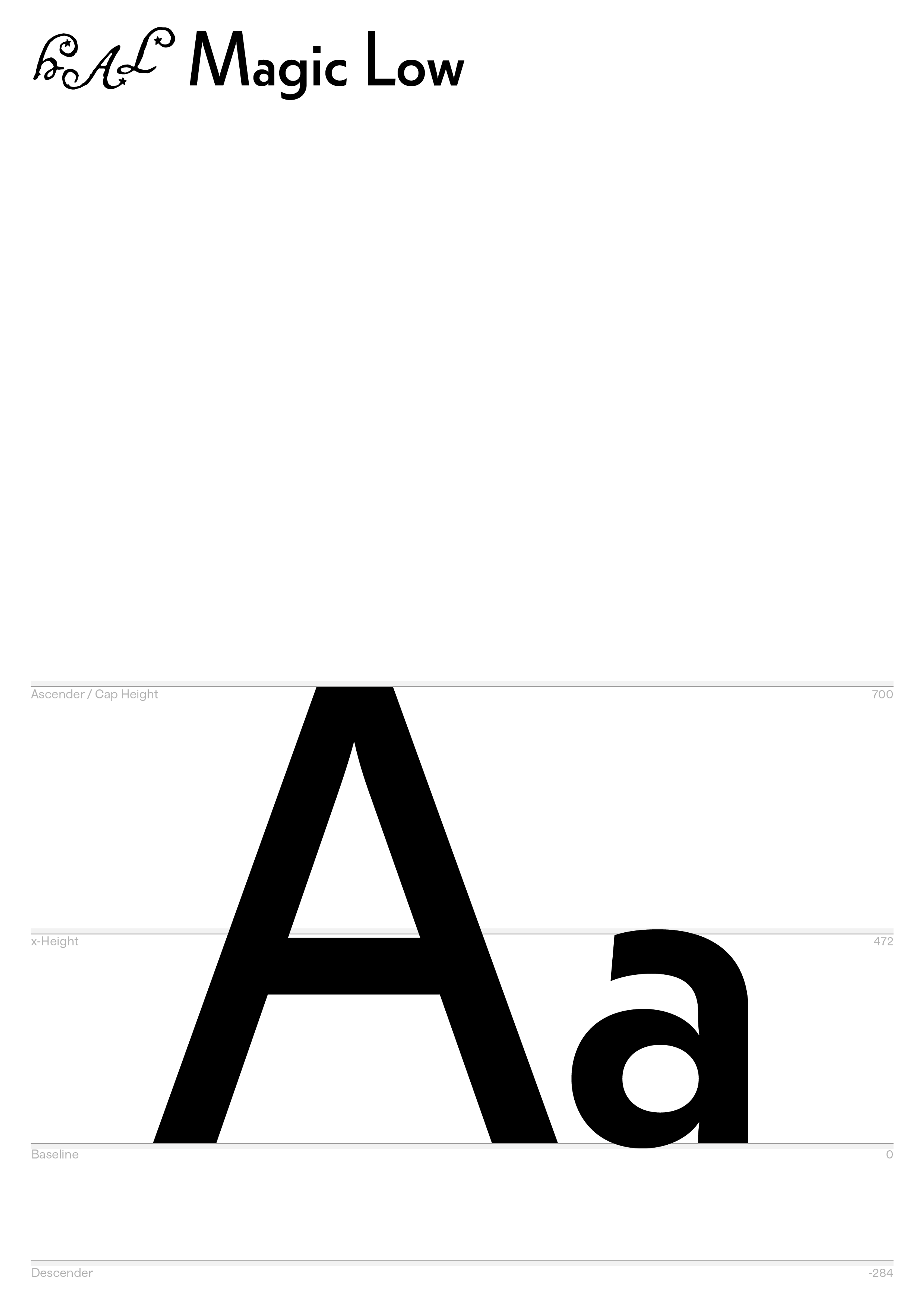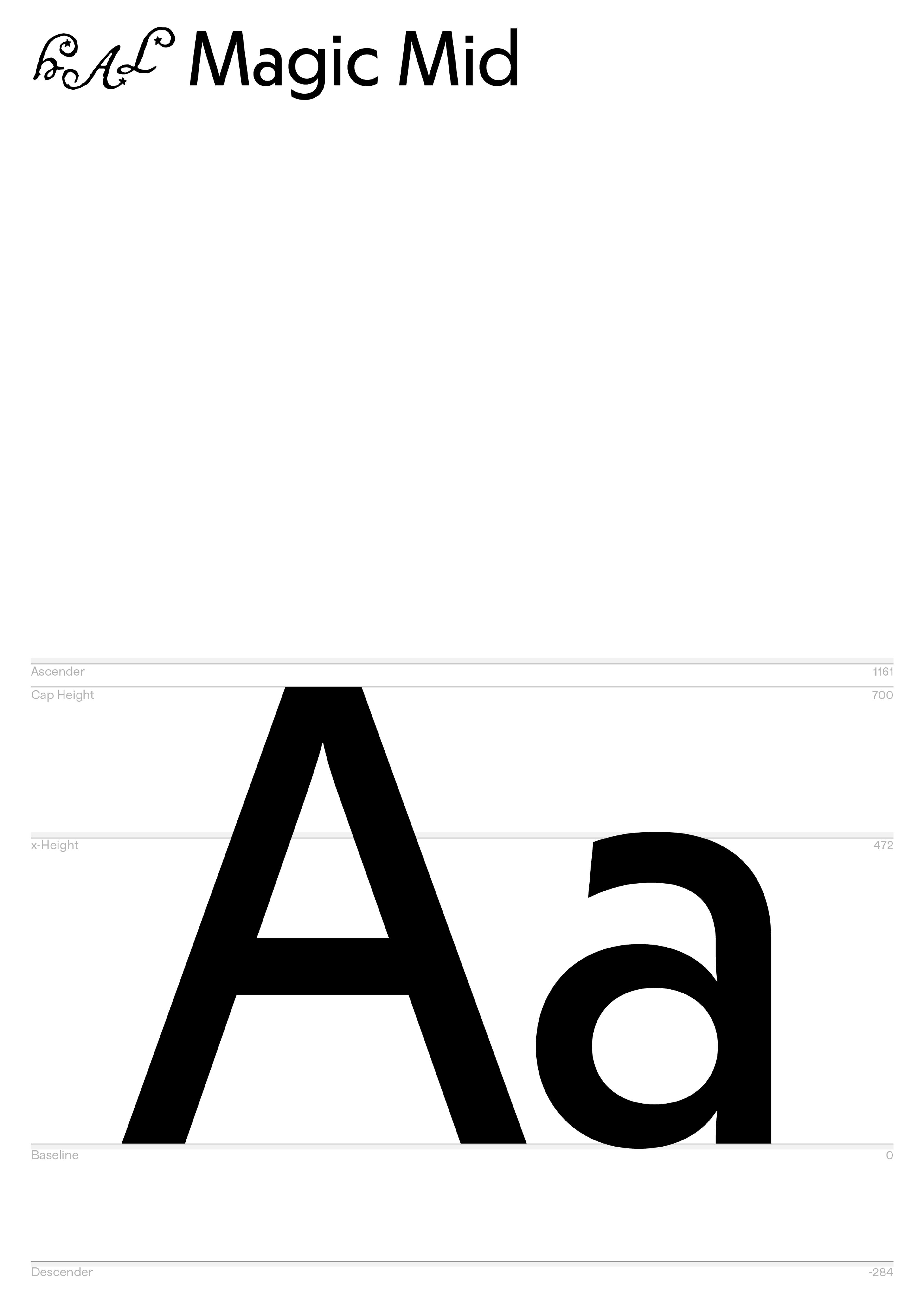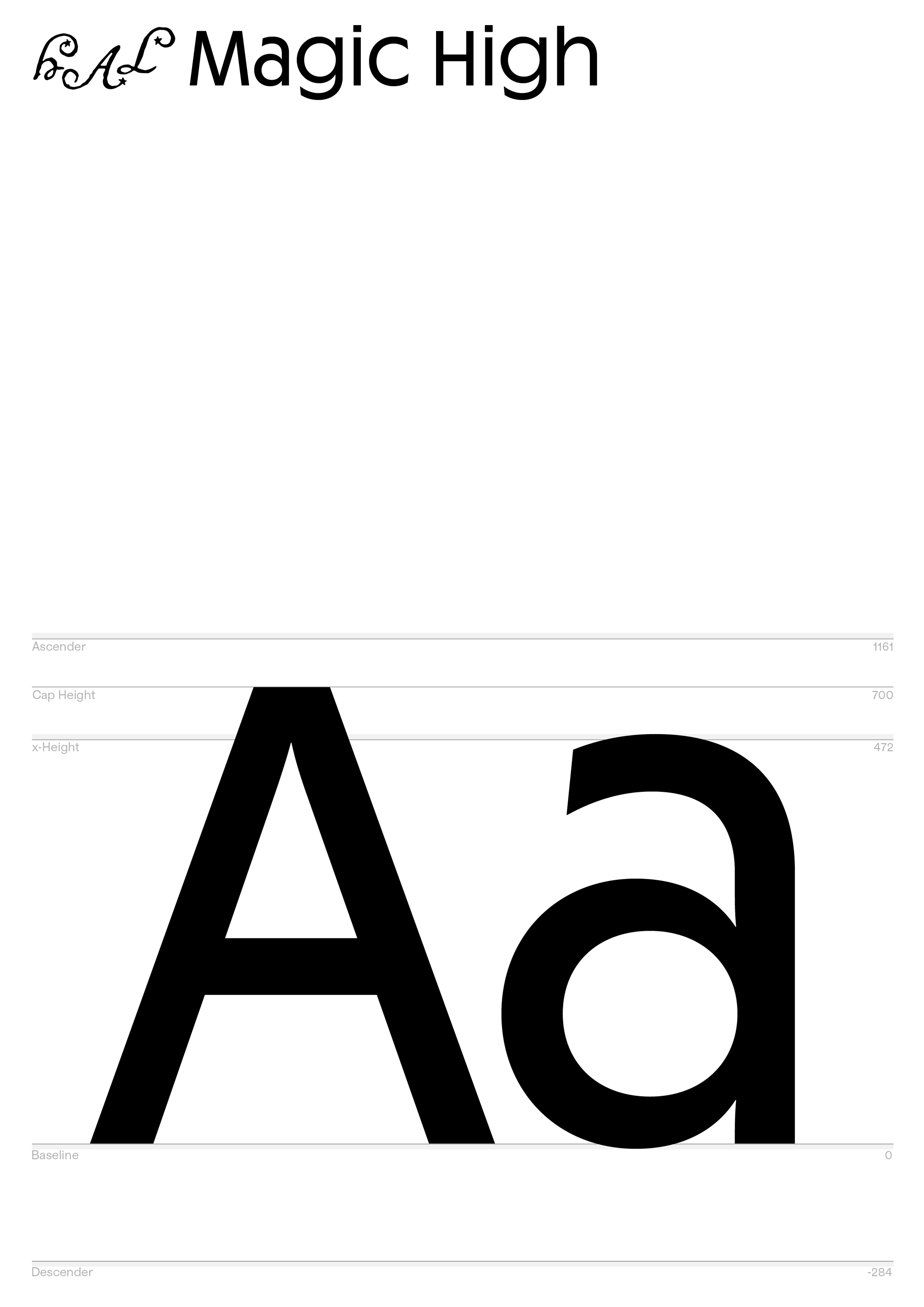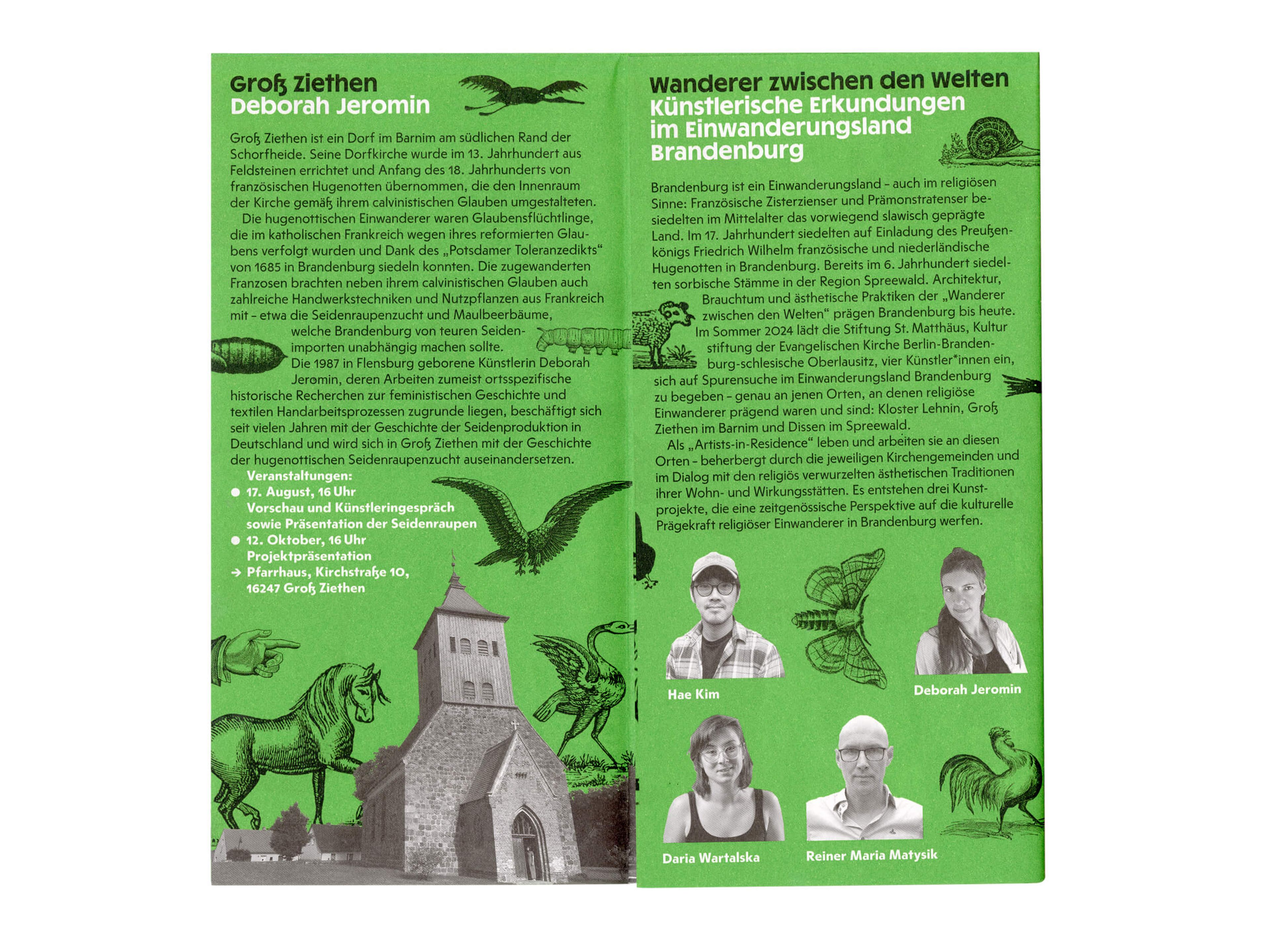
Magic High
Magic Mid
Magic Low
HAL Magic is a true entertainer with some special tricks up its sleeve. The typeface comes in three families with variant x-heights: High, Mid and Low. Each family brings its own distinct flavour and contains six weights plus corresponding obliques. All of these states are included in a spellbinding variable font, which allows for fluid transitions and enchanted shapeshifting. Rely on Magic to get the job done and make it look extremely easy.
Design: HAL Typefaces
Production: HAL Typefaces with Alex Lescieux
Spacing/Kerning: Igino Marini
Wanderer zwischen den Welten Design by Studio HanLi, 2024